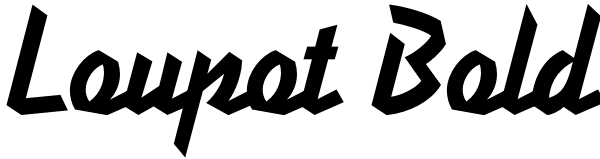
Loupot
In 1948, French designer Charles Loupot drew a revolutionary logotype to promote St. Raphael mineral water. Half a century later, the qualities of this logo inspired New York designer and illustrator Laurie Rosenwald to work with Boston type...